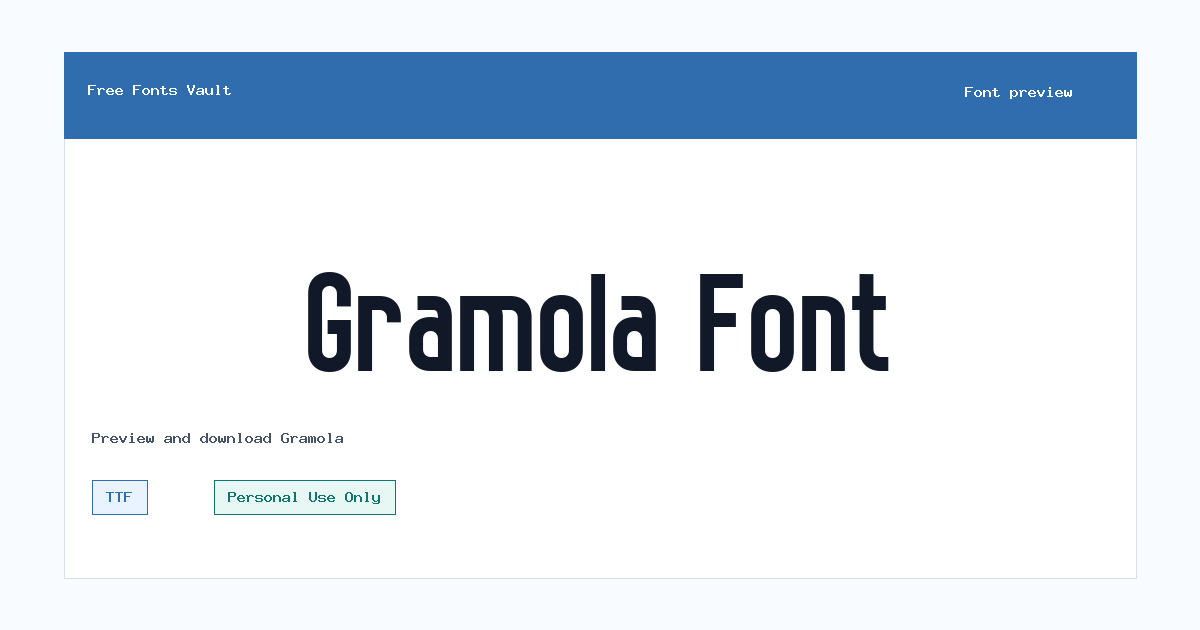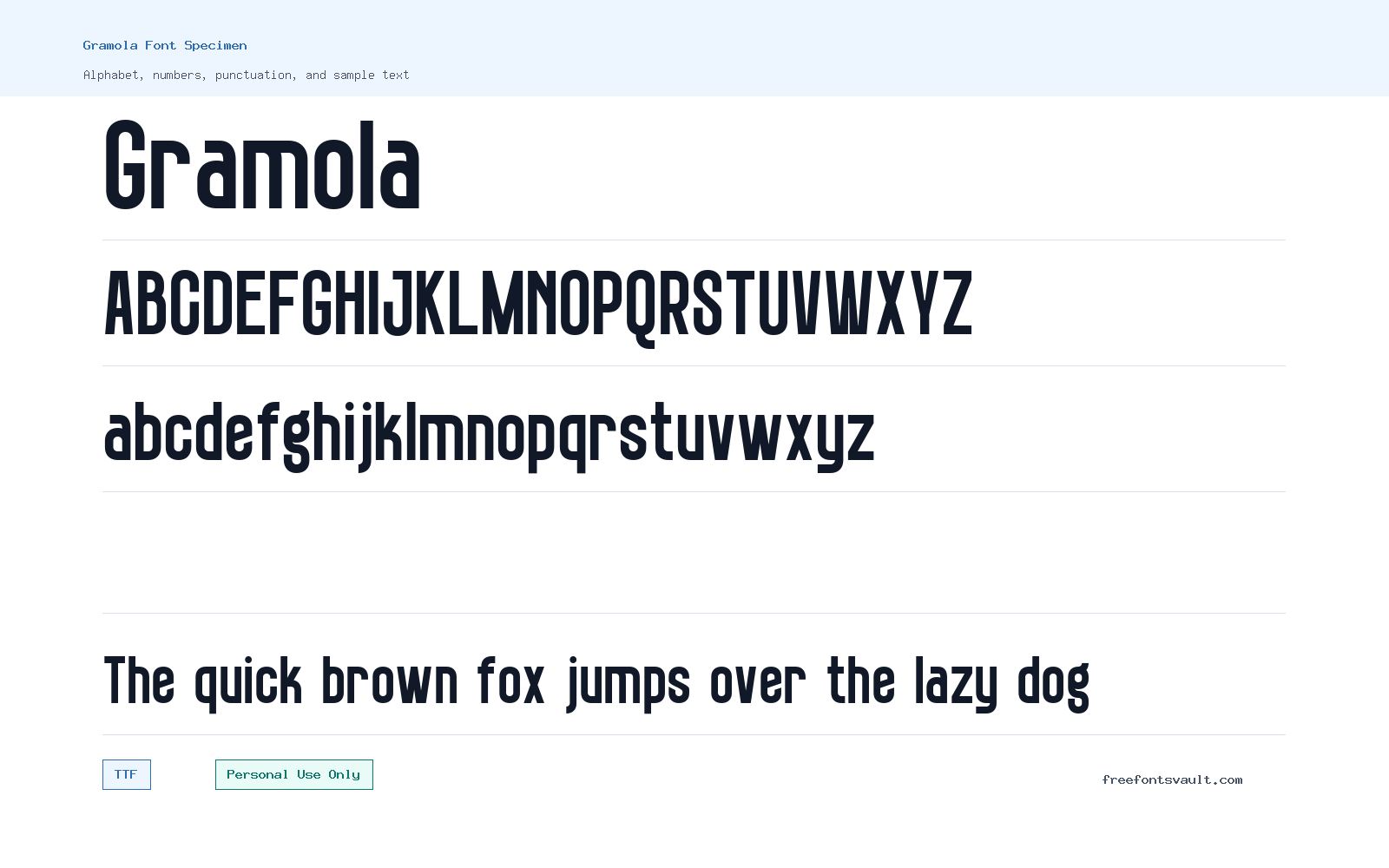
Gramola
- Designer Say Studio
Gramola is a regular-weight sans serif font from Say Studio, offered as a TTF file for personal-use projects. It is a practical choice to test when you need clean letterforms for short display text, simple titles, or design mockups where a modern sans serif style fits the brief.
About Gramola Font
Gramola works best when you use it with a clear purpose: headlines, nameplates, social graphics, poster text, presentation covers, or brand concept drafts. Since the font is available in a regular 400 style, it is most useful as a single-style display or text accent rather than a full type system with multiple weights. Try it first in the preview box with the exact words you plan to use, especially if your design depends on tight spacing, all-caps text, or a short logo-style phrase.
For longer reading, keep the testing practical. Set a few sample lines at body size, then check spacing, punctuation, numbers, and mixed-case text before building a full layout around it. If the design starts to feel too plain or too dense, pair Gramola with a neutral serif for editorial contrast or with a lighter geometric sans for supporting text. Avoid using too many decorative or strong display fonts beside it; a restrained pairing will usually make the main title easier to read.
- Sans serif family suited to previews, mockups, and personal design tests
- Personal posters, social media graphics, and title treatments
- Logo drafts, presentation covers, and short display text experiments
Who designed Gramola?
Gramola is listed with Say Studio as the designer.
What style of font is Gramola?
Gramola is listed as a sans serif font in a regular 400 style. It is best tested for short text, titles, and clean layout mockups.